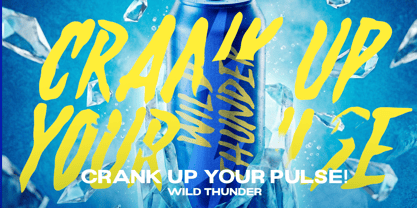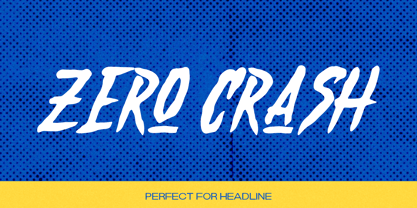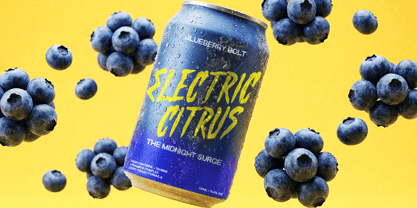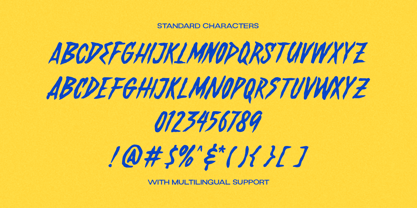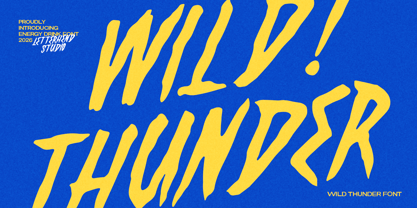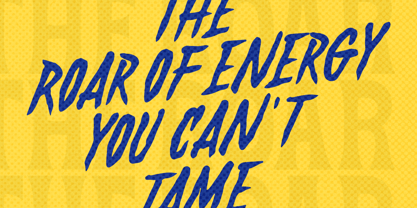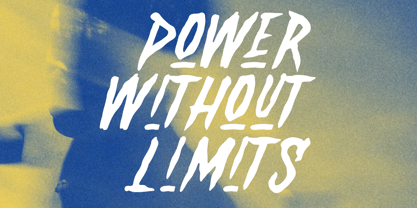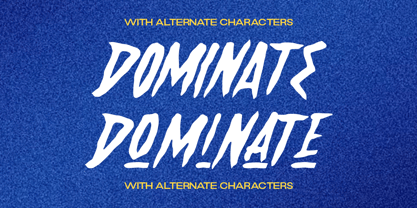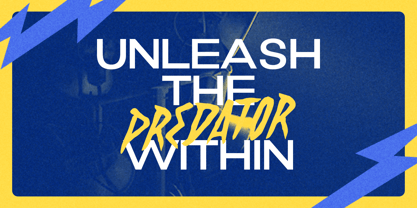
Wild Thunder
by Letterhend
The Wild Thunder Font Family was designed by Hendry Juanda and published by Letterhend. Wild Thunder contains 1 styles. More about this family
Wild Thunder Font hits like a lightning strike—bold, fast, and full of raw energy. This hand-drawn brush style brings sharp angles, jagged strokes, and a punchy rhythm that feels loud even when it’s silent—zap! boom! Perfect for streetwear, posters, sports branding, album covers, and anything that needs attitude, Wild Thunder doesn’t whisper, it roars. ⚡ Features : Uppercase & lowercase Numbers and punctuation Multilingual Support PUA encoded
Designers: Hendry Juanda
Foundry: Letterhend